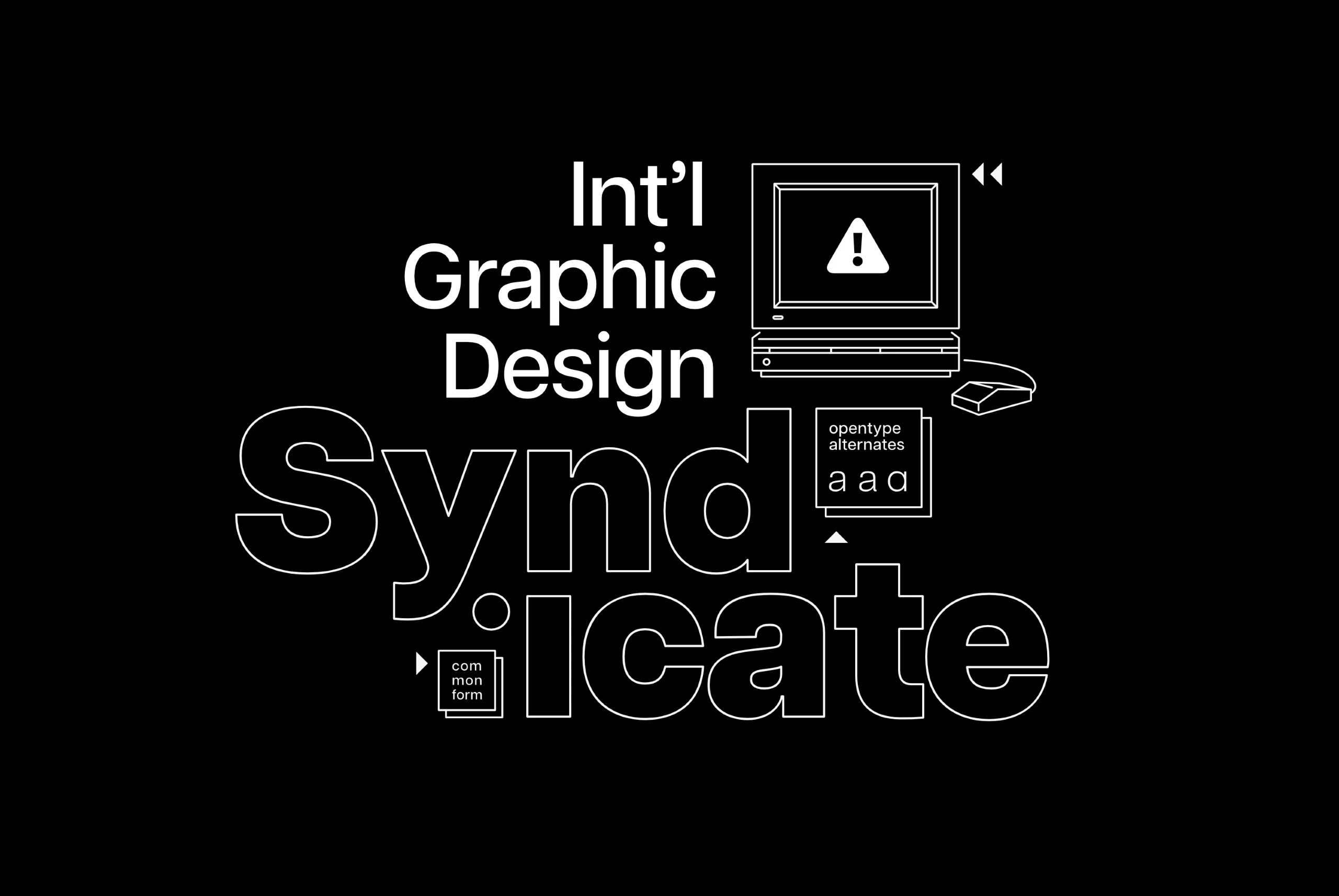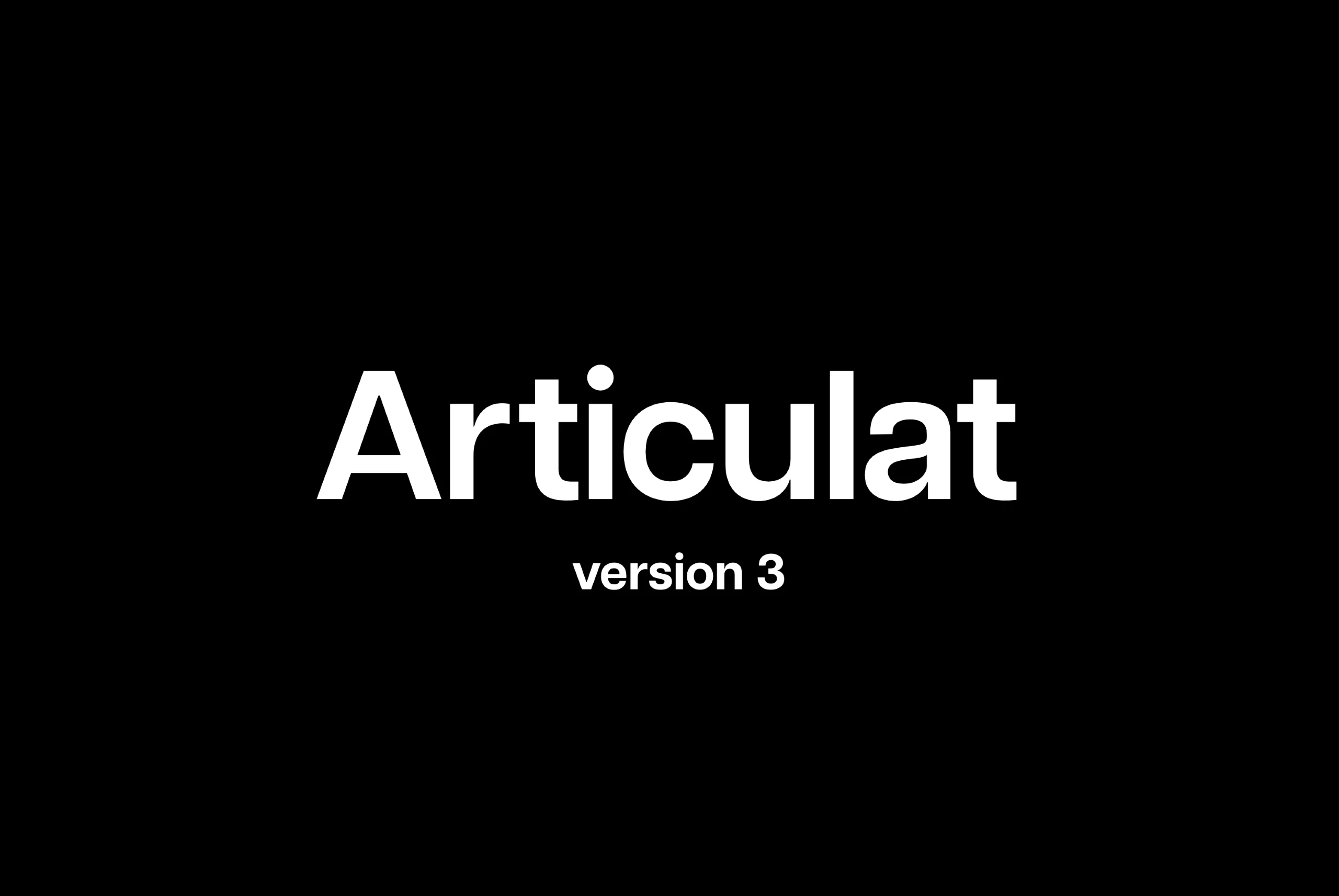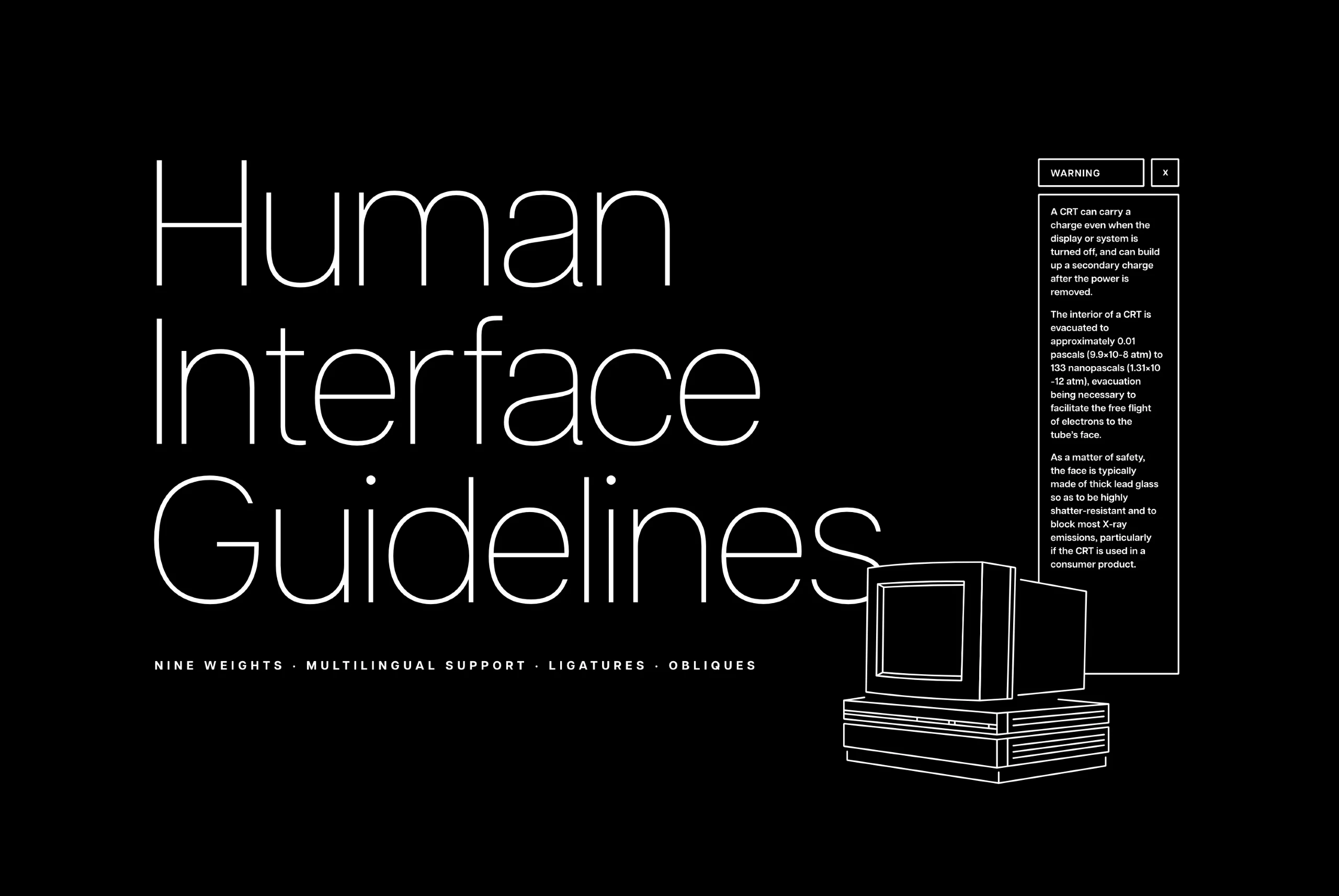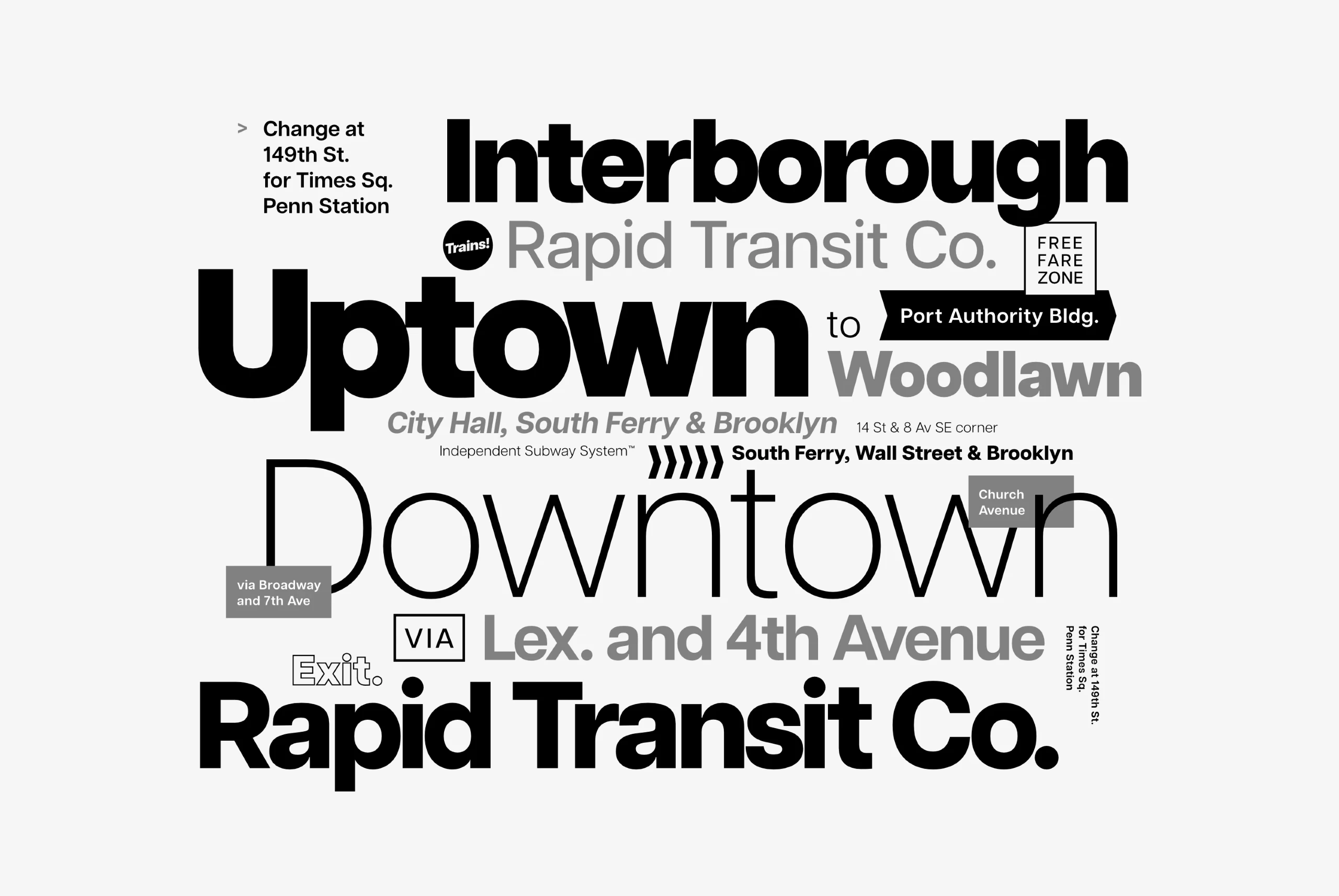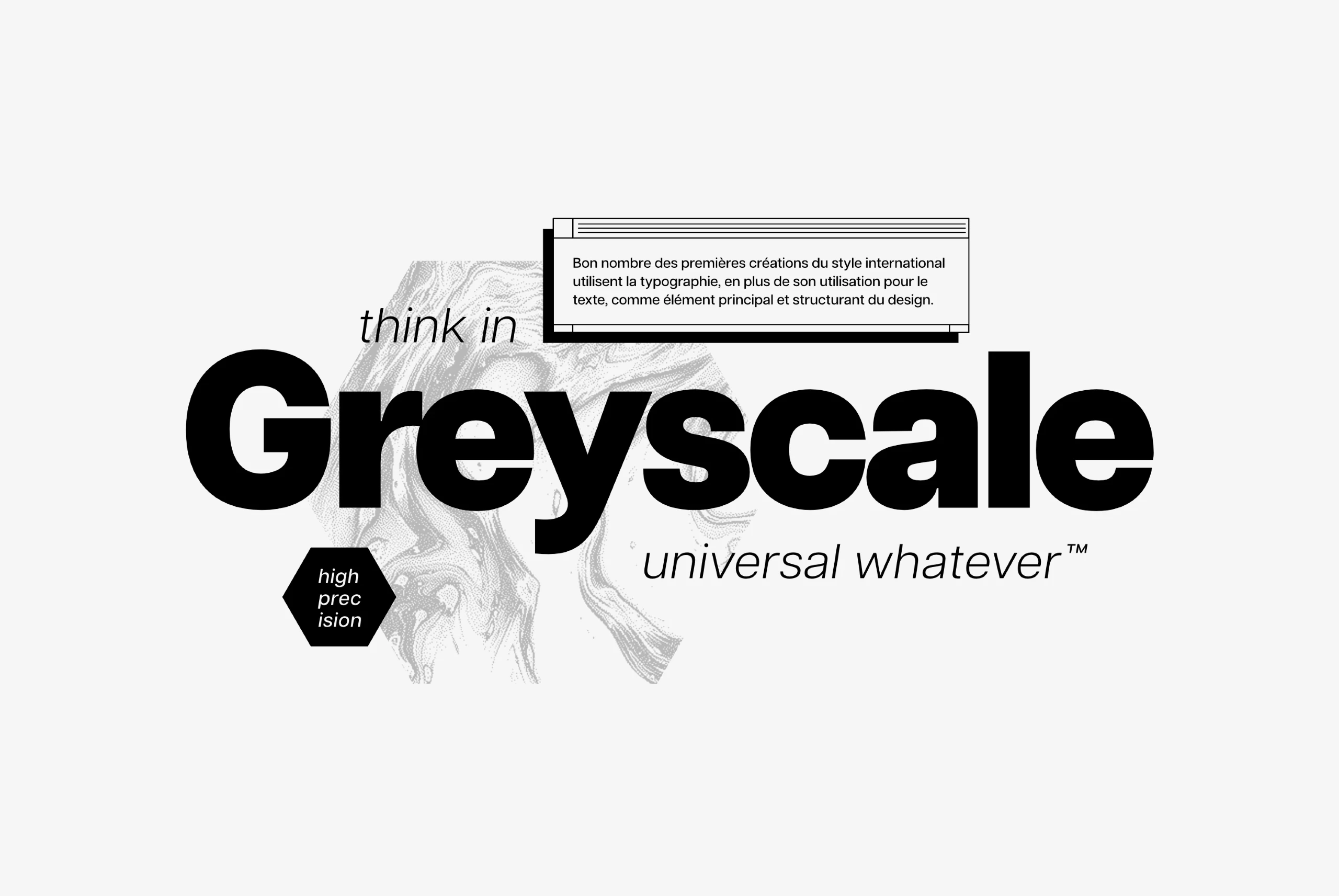
Articulat
Articulat Font Family
Articulat CF is a new take on the timeless Swiss typography style. Strong, sharp and well-spoken, Articulat was built to be versatile, charismatic and legible. Always in style, use it for a hit of mid-century beauty — reimagined for the 21st century with more flavor and individuality. Articulat CF is a sans serif font family. This typeface has twenty styles and was published by Connary Fagen Type Design.
ten Weights in Latin & Cyrillic • Stylistic Sets Script
Articulat font by Connary Fagen Fonts — the words “Int’l Graphic Design” in upright sans serif, and “Syndicate” in outlined sans serif, with a line-art computer icon showing an alert, and boxes for “opentype alternates” and “common form” Articulat font by Connary Fagen Fonts — the word “ImageWriter” in a bold sans serif, with an outline drawing of a printer above it and a list of printer specifications below Articulat font by Connary Fagen Fonts — the word “Articulat” in large sans-serif letters above the words “version 3” in smaller sans-serif letters Articulat font by Connary Fagen Fonts — the words “OrbitedelaLune” in sans serif letters, with “Orbitede” in a heavier weight and “laLune” in a lighter weight, all within a large black circle with a smaller black circle below it Articulat font by Connary Fagen Fonts — the words “Human Interface Guidelines” in a thin sans serif, with “Nine Weights • Multilingual Support • Ligatures • Obliques” below, and a line-art illustration of a vintage computer and monitor, plus a “Warning” box with text about CRTs. Articulat font by Connary Fagen Fonts — a collage of sans serif text in black and gray, including the words “Interborough”, “Uptown”, “Downtown”, and “Rapid Transit Co.”, with some words in outline form. Articulat font by Connary Fagen Fonts — the word “Greyscale” in large, bold, sans-serif letters over a gray marbled texture, with “think in” above and “universal whatever” below in smaller, italic sans-serif letters, and a small black hexagon with “high precision” in white italic letters. Articulat font by Connary Fagen Fonts — the words “Executive Sector” in a bold, upright sans serif.